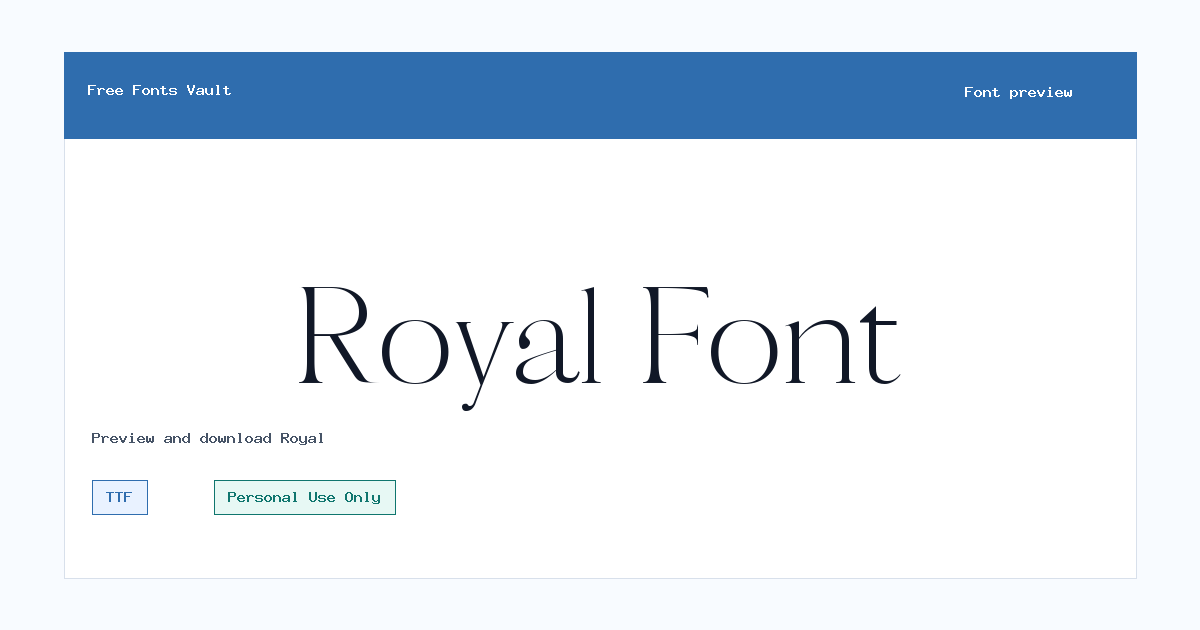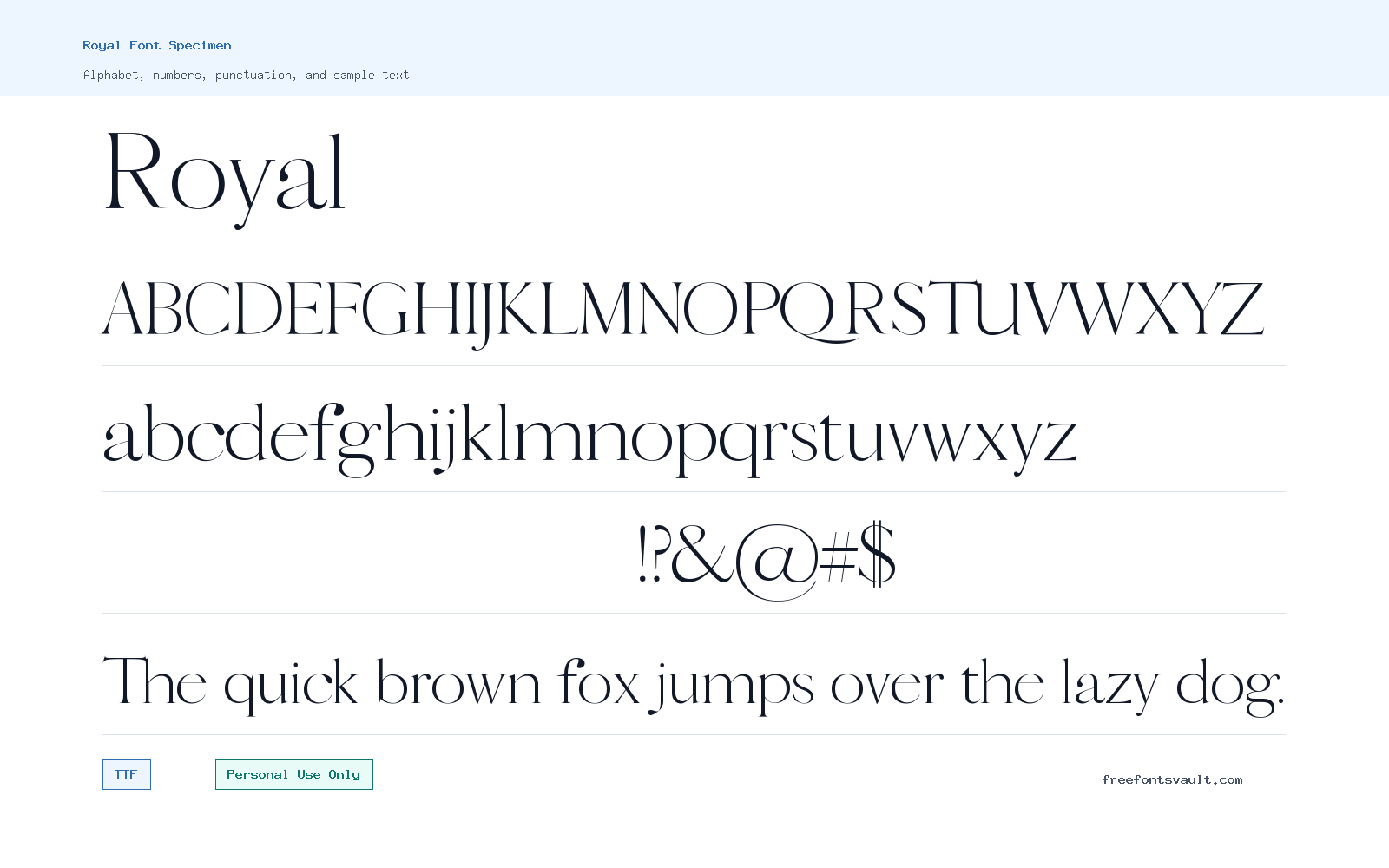
Royal
Royal font.
Royal is a serif font with a formal, decorative feel that works best when you want text to look polished without using a plain everyday typeface.
About Royal Font
Royal is offered as a regular-weight TTF font, making it easy to test in most design apps, word processors, and preview tools that support TrueType fonts. Its serif style gives headings and short lines a more traditional look than a simple sans serif. Because only a regular style is included, it is best treated as a display or accent font rather than a full text family for complex layouts.
- Serif styling suited to titles, decorative text, invitations, labels, and short display use.
- Elegant headings, name designs, event graphics, printable cards, and short title layouts.
For the best result, start with Royal in larger sizes where the serif details can breathe. Keep line lengths short, add a little letter spacing if the design feels tight, and avoid using it for long paragraphs. A simple sans serif or quiet text serif can balance it well when you need readable supporting copy below a more decorative Royal heading.
What style is Royal?
Royal is a serif font in a regular weight. It is most useful for short display text, headings, names, cards, and decorative layouts.
How should I pair Royal with other fonts?
Pair Royal with a plain, readable companion font. Use Royal for the main title, then use a simple sans serif or restrained serif for paragraphs, dates, addresses, and smaller details.